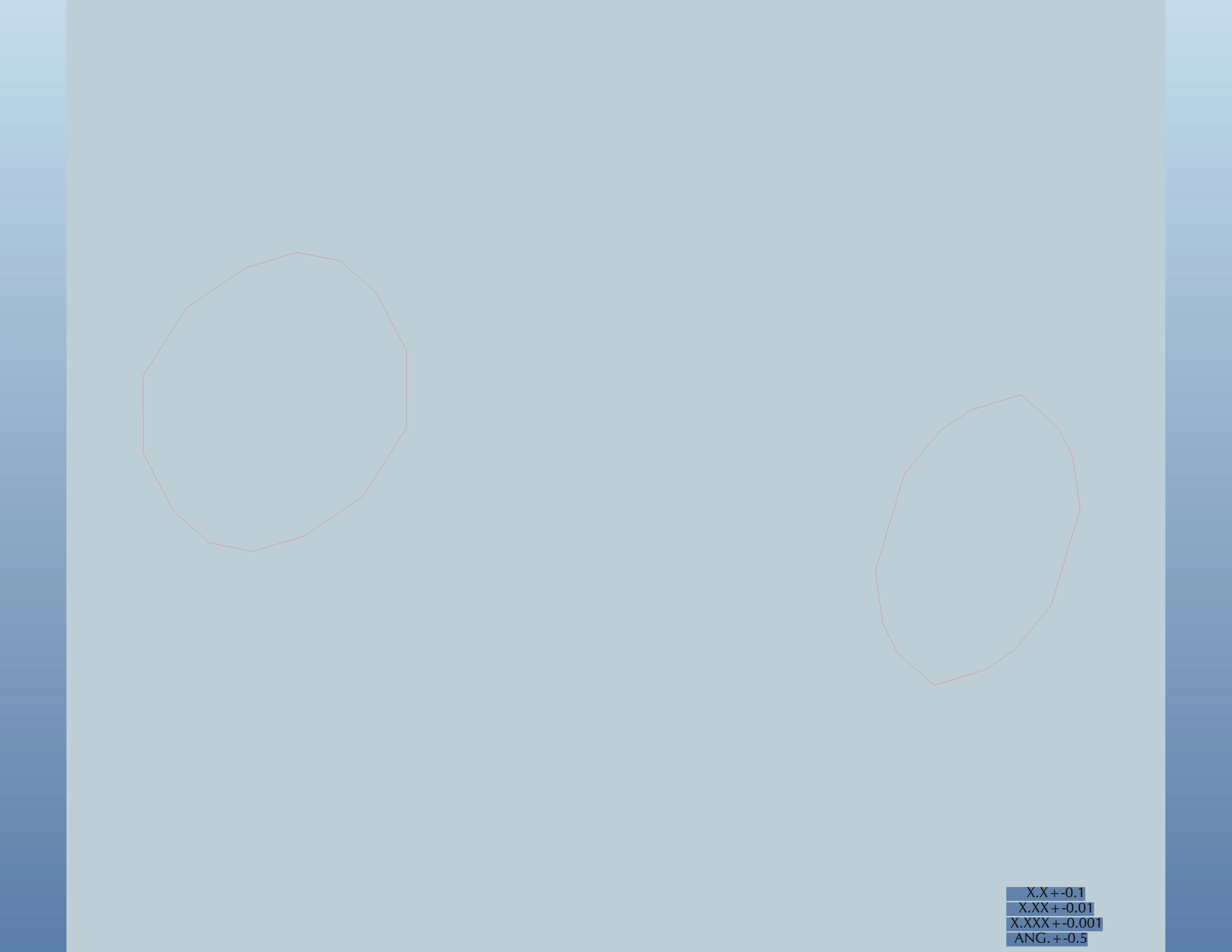
Engraving Font Resolution
Does anyone know how to change the font resolution when engraving? I use the "font" in the drop down menu which gives the text single line to follow when using a single point tool. The problem from an aesthetic point of view is that when the font gets large say .500"or larger the round curves of say a "0" or "P" ect. get pointed or not a nice round look to them. Is there a way to change the smoothing of the line somehow? Tried to with no luck.
Try the leroy font. It gives you nice rounded O and 0 for engraving. I have my level of detail set very high and they still look pointy with font or isofont.
You can change your level of detail (lod) in your options or environment. Tools, options or tools, environment.
Try the leroy font. It gives you nice rounded O and 0 for engraving. I have my level of detail set very high and they still look pointy with font or isofont.
Fonts are just line segments defined in a grid of 63x63. The default font uses 16x16 grid where as Leroy used the full 63x63. Unfortunately TrueType, does not allow single line fonts.
Did you try an alternative font with a small style like cal_alf? That's one of the standard fonts we've used before. See if it works for you...